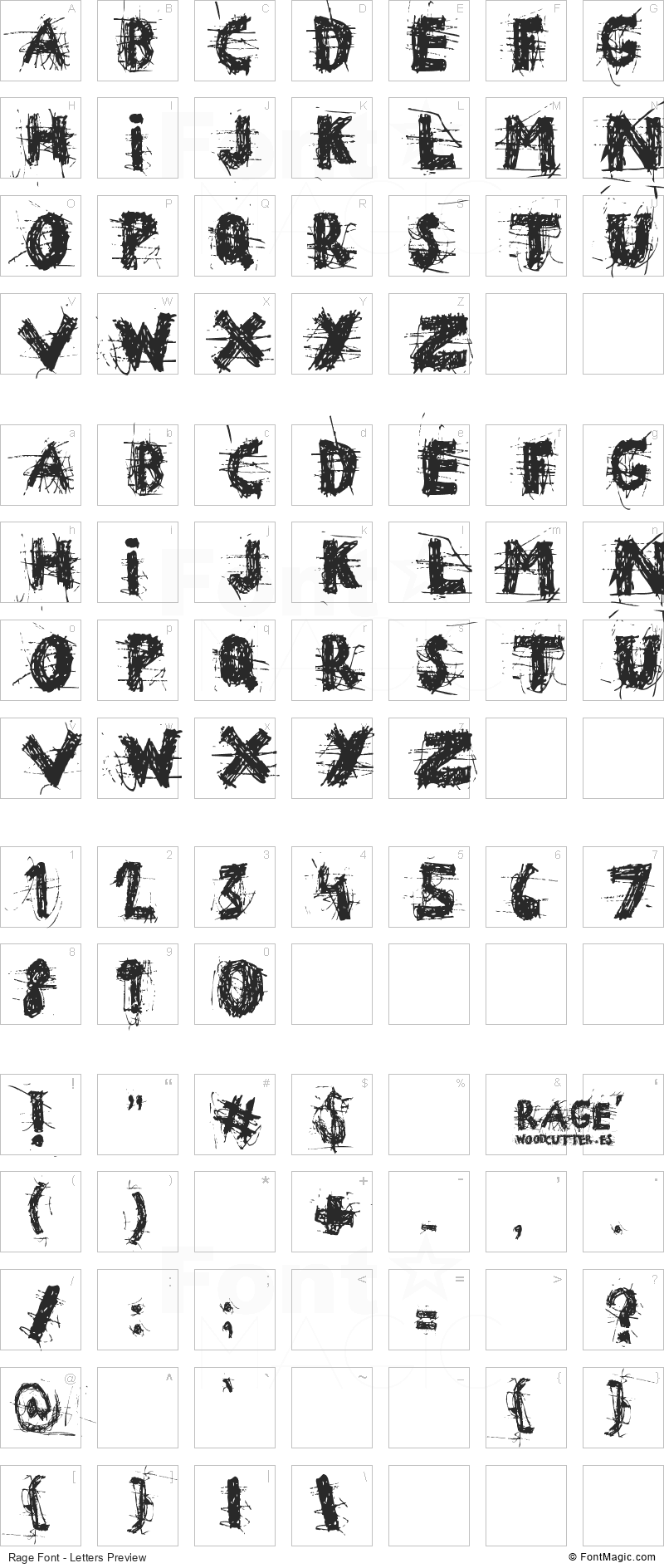
Rage Font is perfect for aggressive sports branding, intense gaming interfaces, powerful energy drink packaging, extreme sports promotions, rebellious fashion labels, fierce competition materials, high-impact advertising campaigns, revolutionary protest signage, passionate activist communications, and intensely explosive marketing communications.
Rage Font is exciting because it unleashes raw emotional power and unstoppable intensity with its aggressively dynamic letterforms that seem to burst with the uncontainable force of pure passion and embody the fierce determination that drives individuals to break barriers and challenge limits. Its explosively energetic character design reflects both the adrenaline rush of extreme competition and the righteous anger that fuels social movements and personal transformation, making it perfect for brands channeling intense emotion and revolutionary change.
Rage Font family includes light, regular, medium, bold, and black weights, each with corresponding italic versions. The font family also features aggressive ornaments, intense ligatures, explosive symbols, and revolutionary decorative elements that enhance its powerful aesthetic and high-energy versatility.
This explosively powerful typeface represents the perfect fusion of emotional intensity and revolutionary force. Rage Font Free Download enables designers to unleash its explosive potential before making a commercial commitment. The font's ability to convey both passionate intensity and unstoppable determination makes it ideal for sports brands, gaming companies, and revolutionary organizations targeting audiences seeking extreme experiences and transformative change.
Whether you're developing extreme sports identities, creating high-intensity gaming materials, or designing revolutionary movement communications, Rage Font brings an unmistakable sense of explosive energy and passionate determination to every project. Its aggressive character and revolutionary heritage create powerful connections that resonate with audiences seeking intense experiences and transformative rebellion.
The font's versatility excels in sports and activist environments where intensity and passionate conviction are paramount. Its explosive character makes it particularly effective for extreme sports brands, competitive gaming organizations, energy companies, and revolutionary movements seeking to establish fierce relationships with audiences passionate about intense competition and social transformation.
For designers working on projects requiring genuine explosive energy and revolutionary appeal, Rage Font offers an exceptional solution. Its intensely powerful presence and comprehensive high-energy elements provide the tools needed for creating truly explosive communications, while its passionate determination ensures your designs capture the unstoppable force and revolutionary spirit that defines the most intense competitive experiences and transformative social movements.